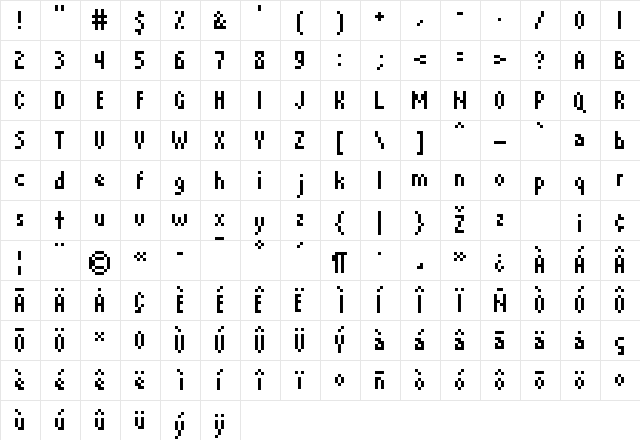
David Device regular
| Foundry | David roberge |
| Designer | David Roberge |
Design Context for David Device Typeface
David Device takes a measured approach to typography — its balanced proportions and neutral character make it a reliable workhorse for both digital and print work.